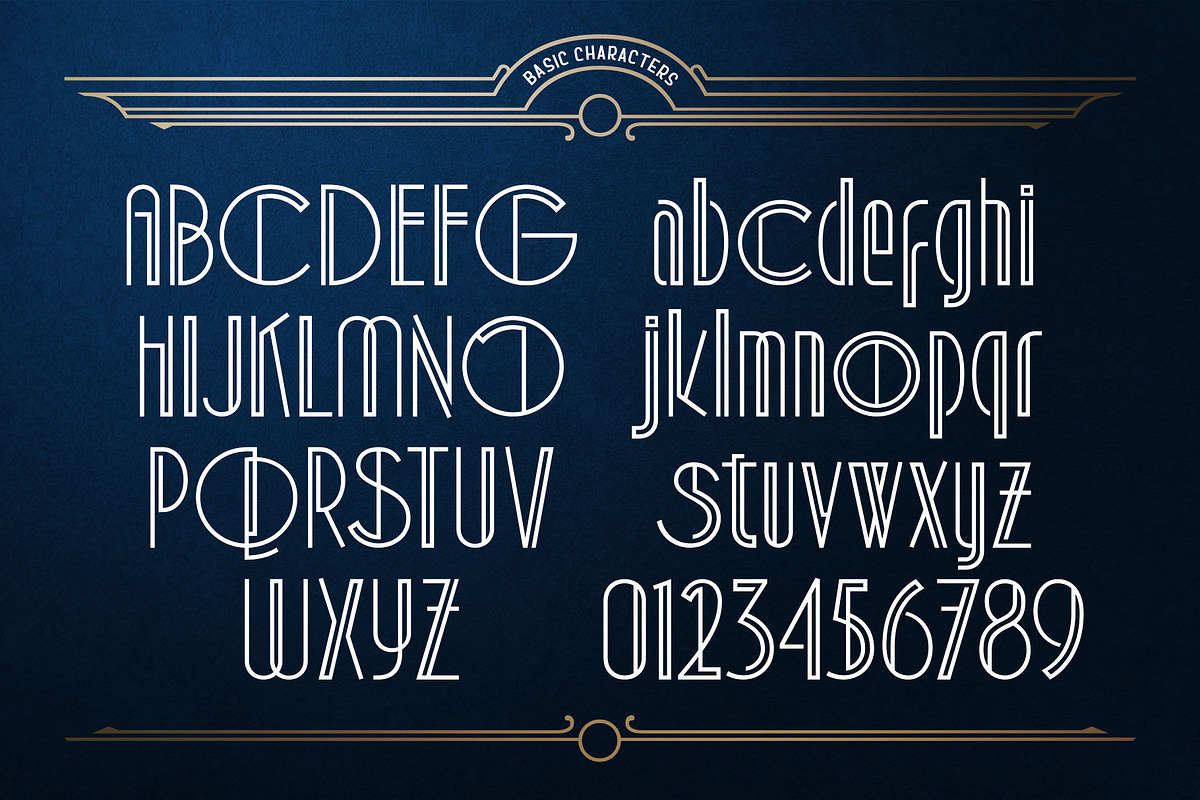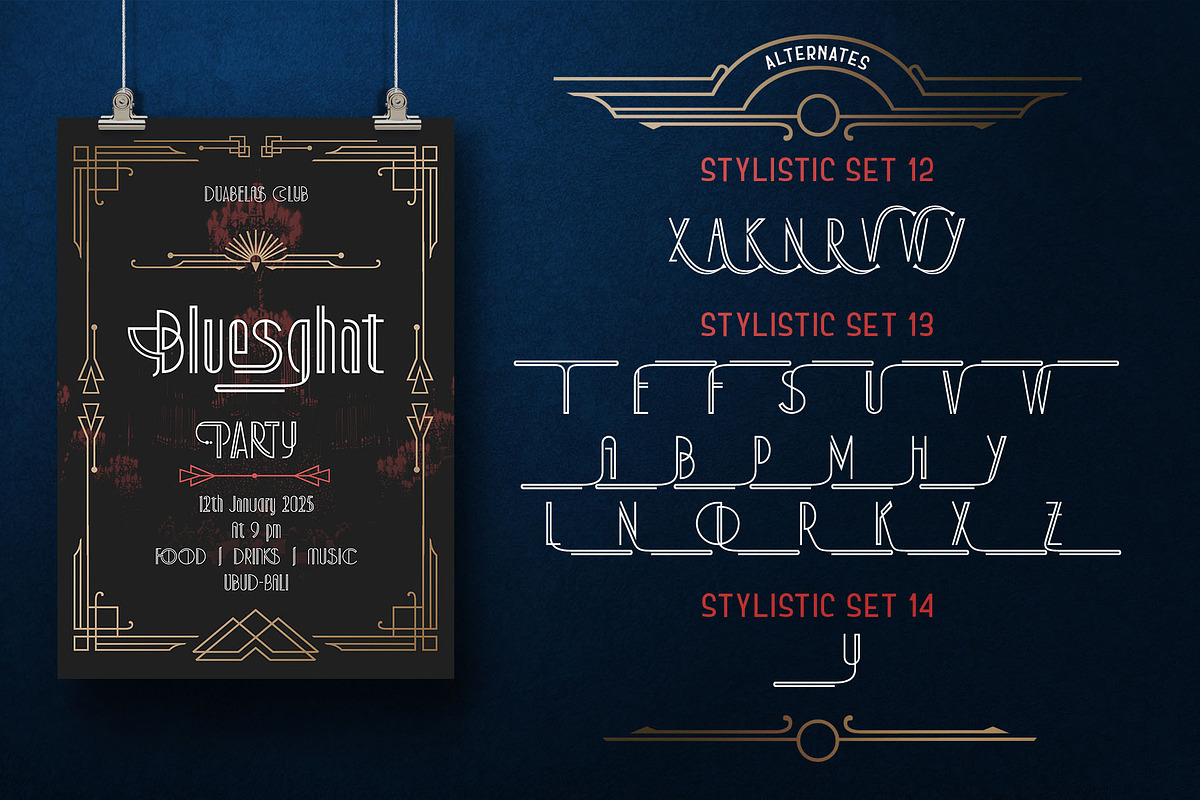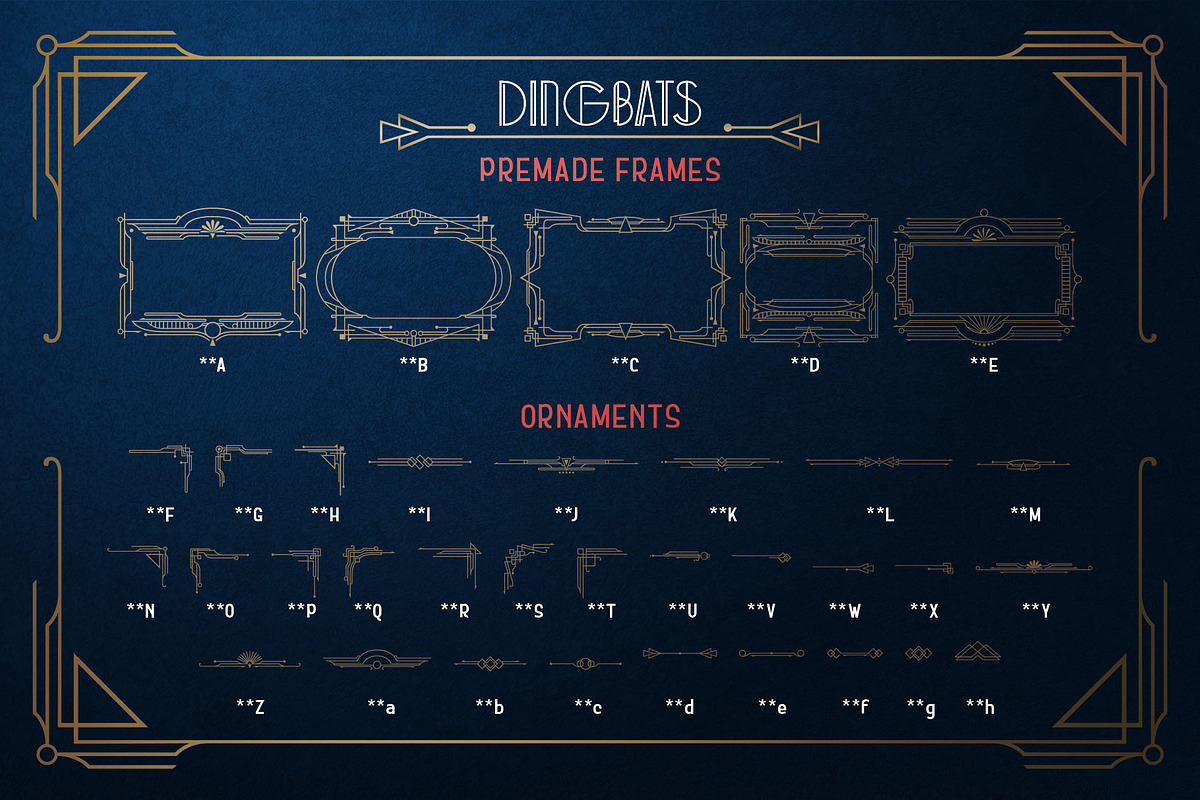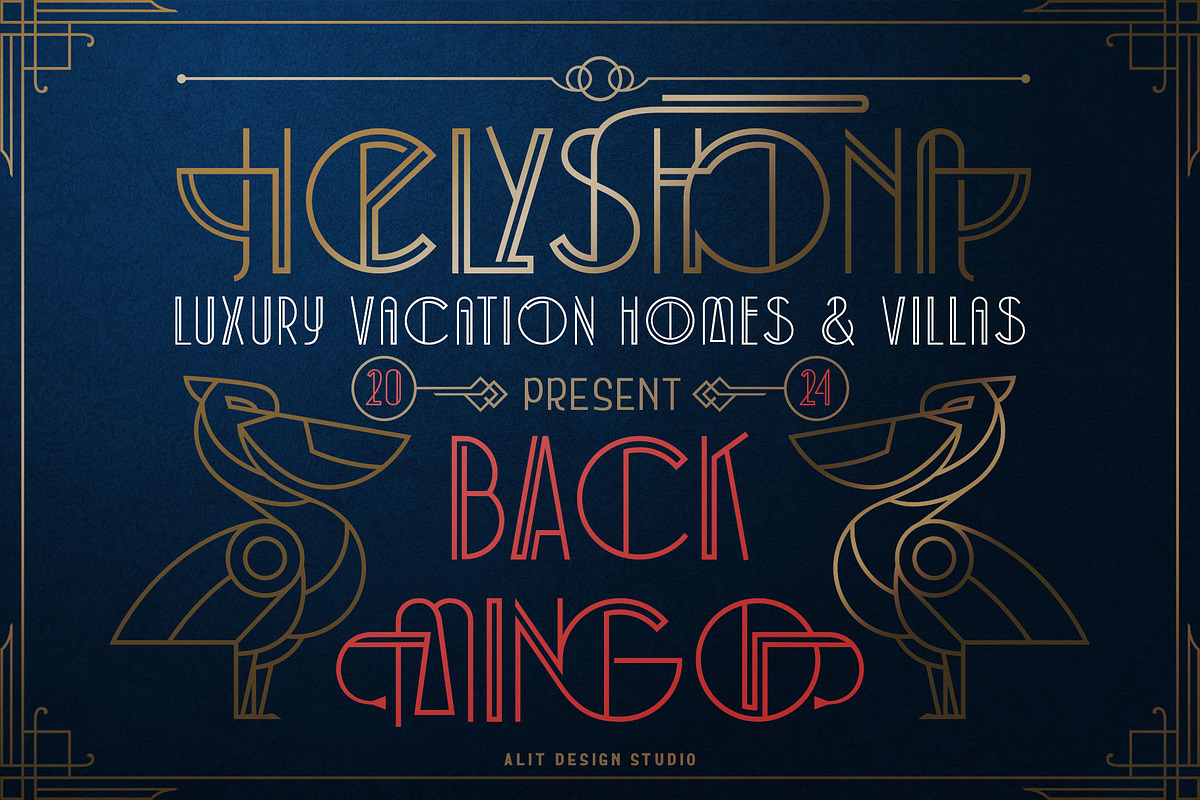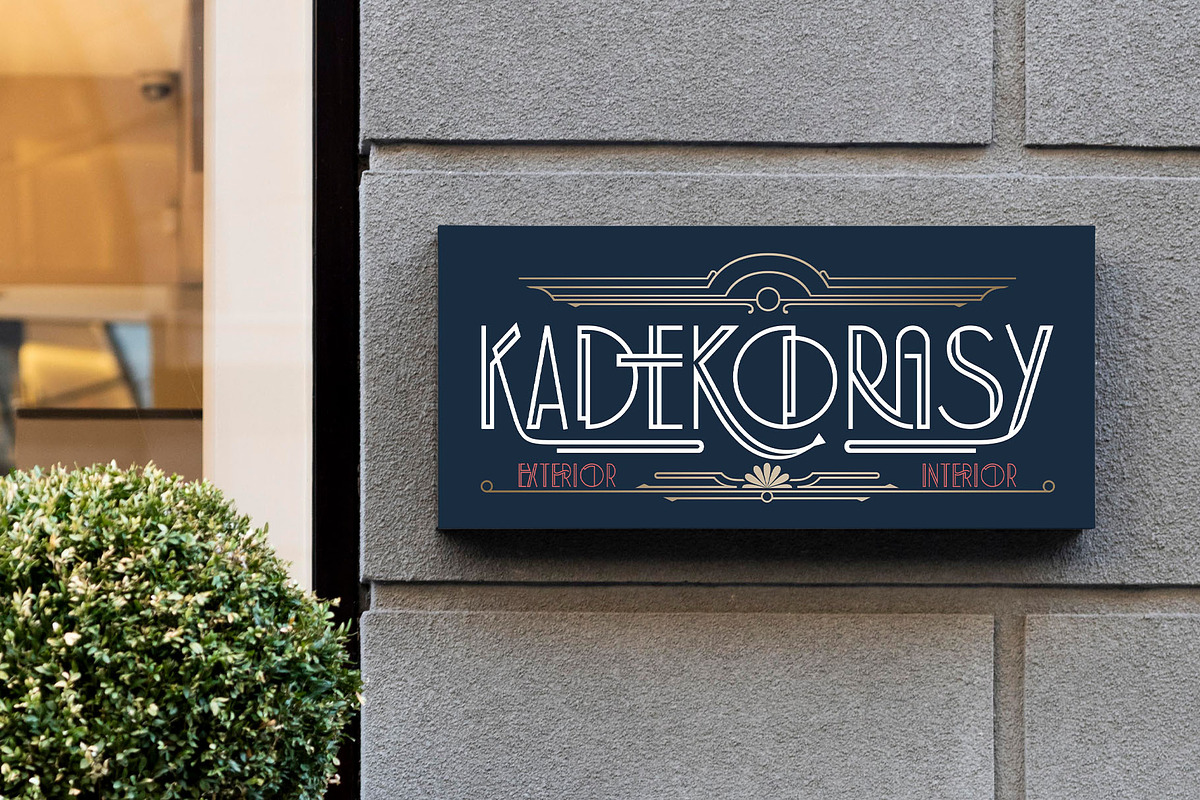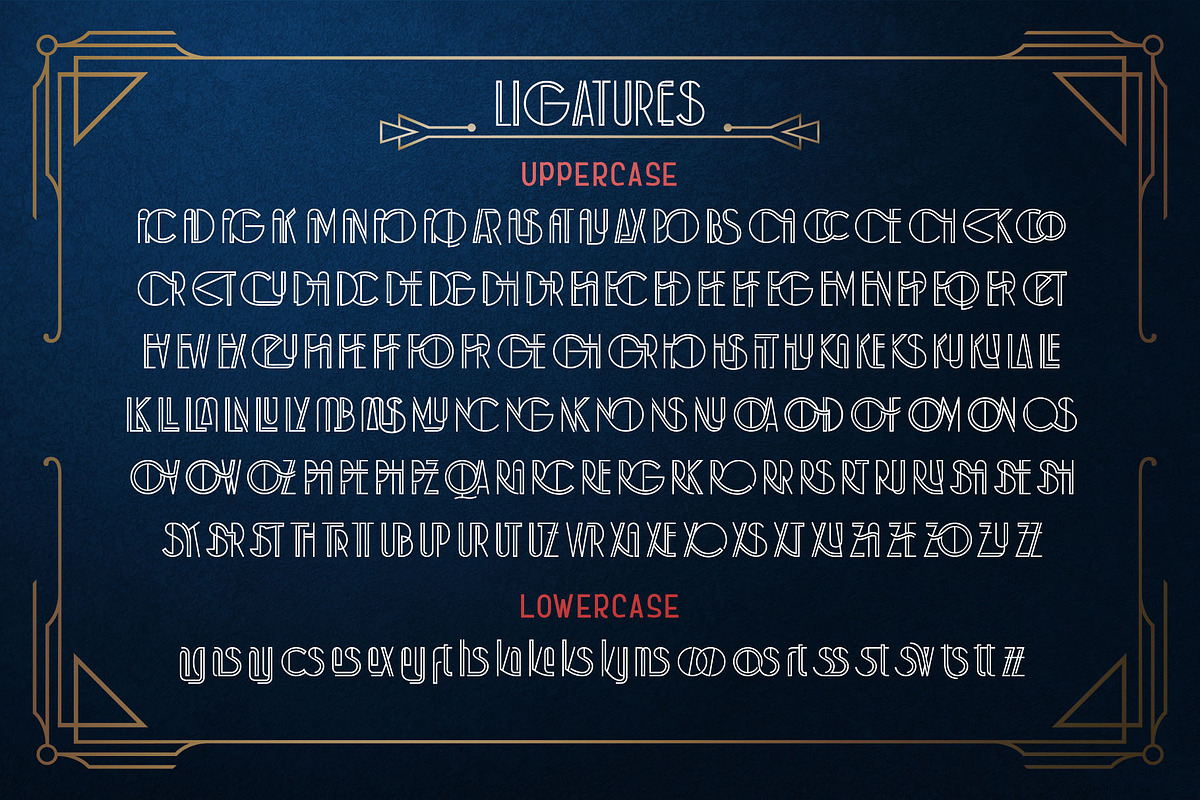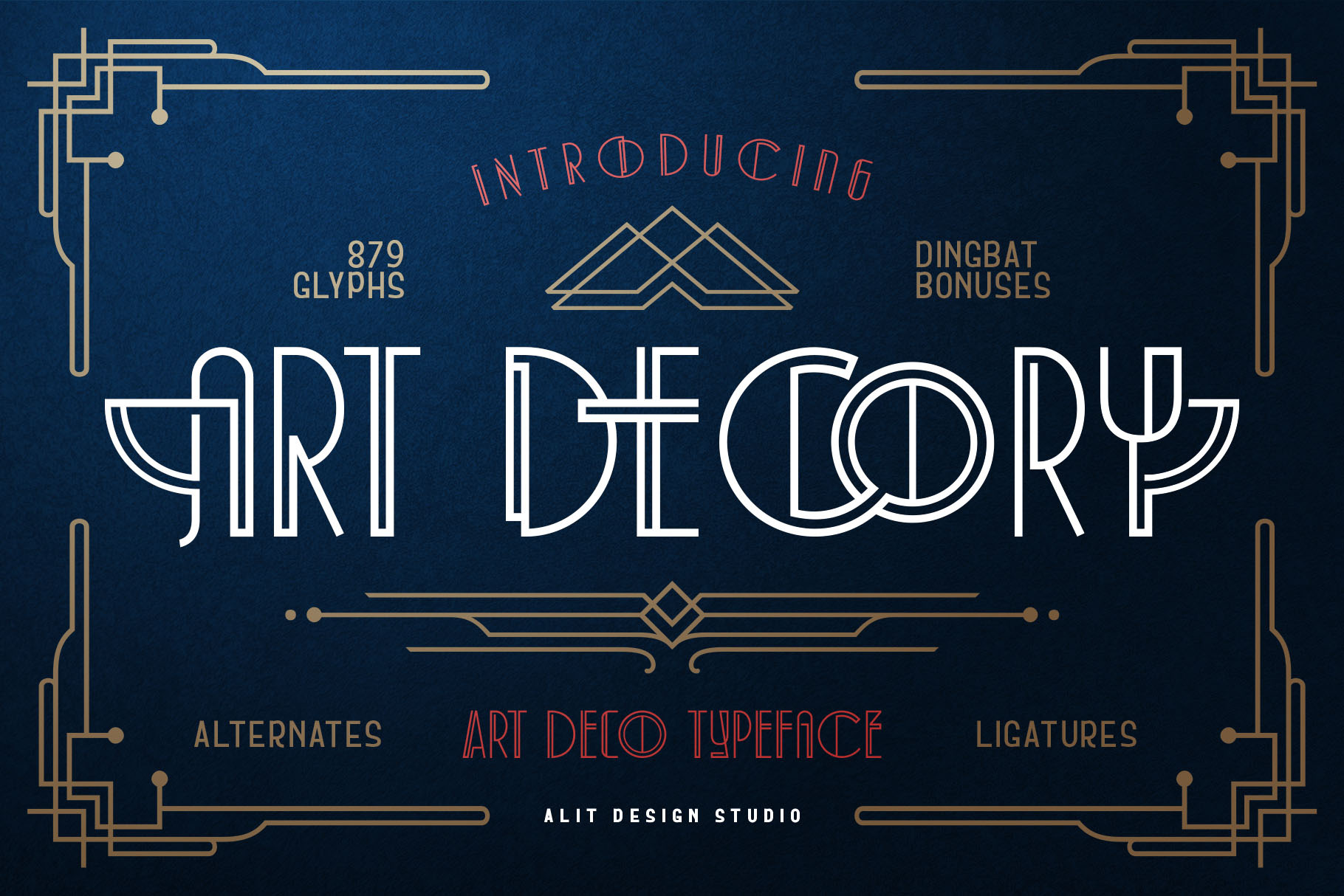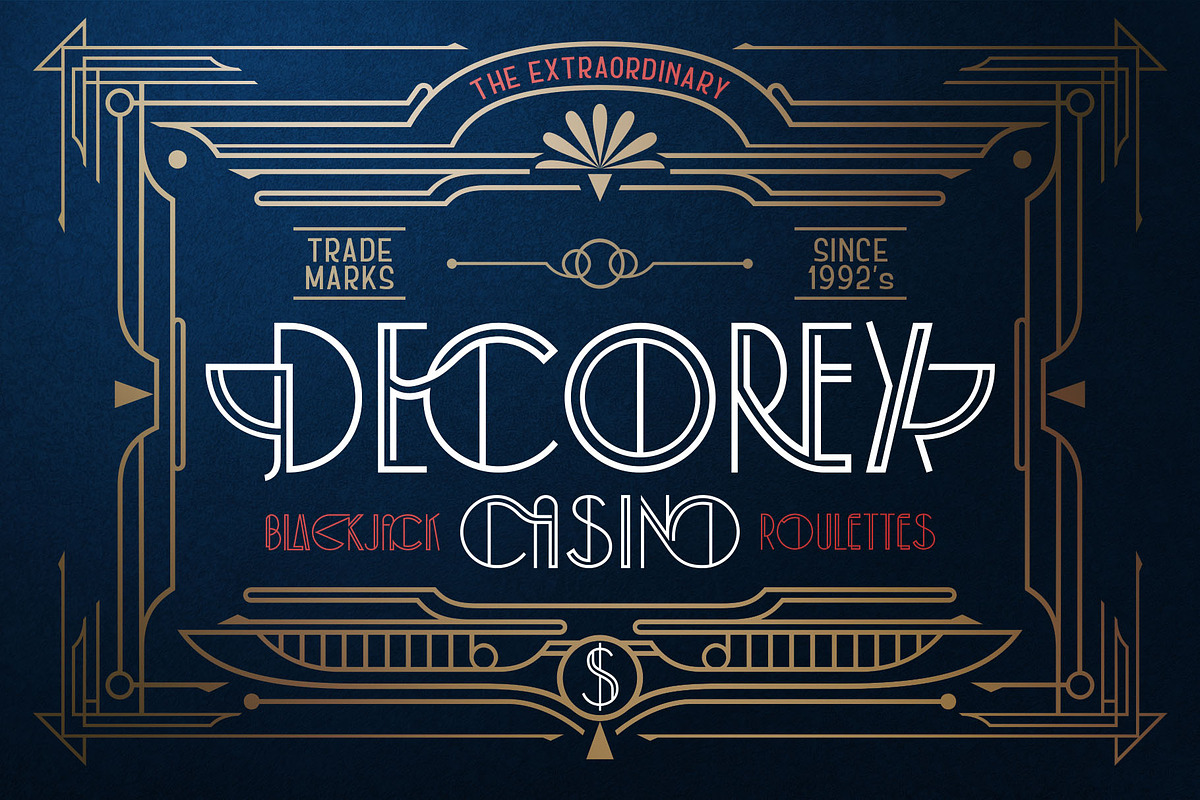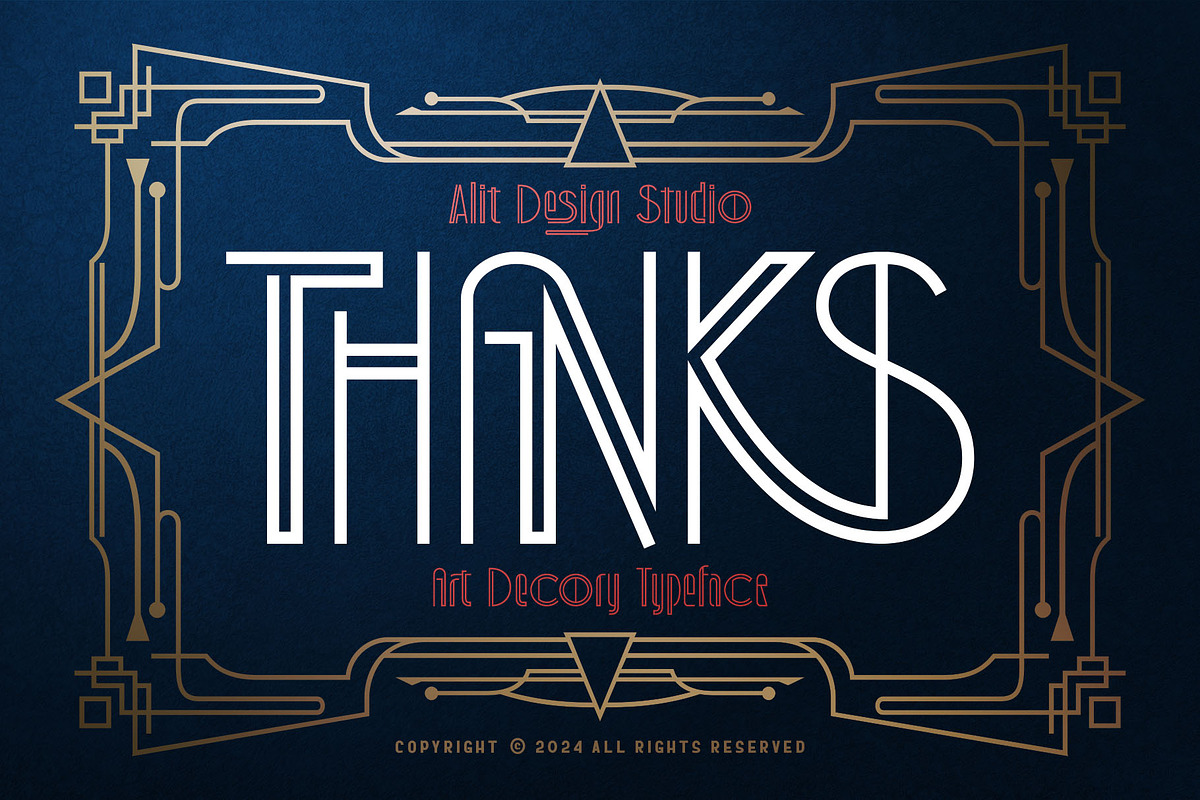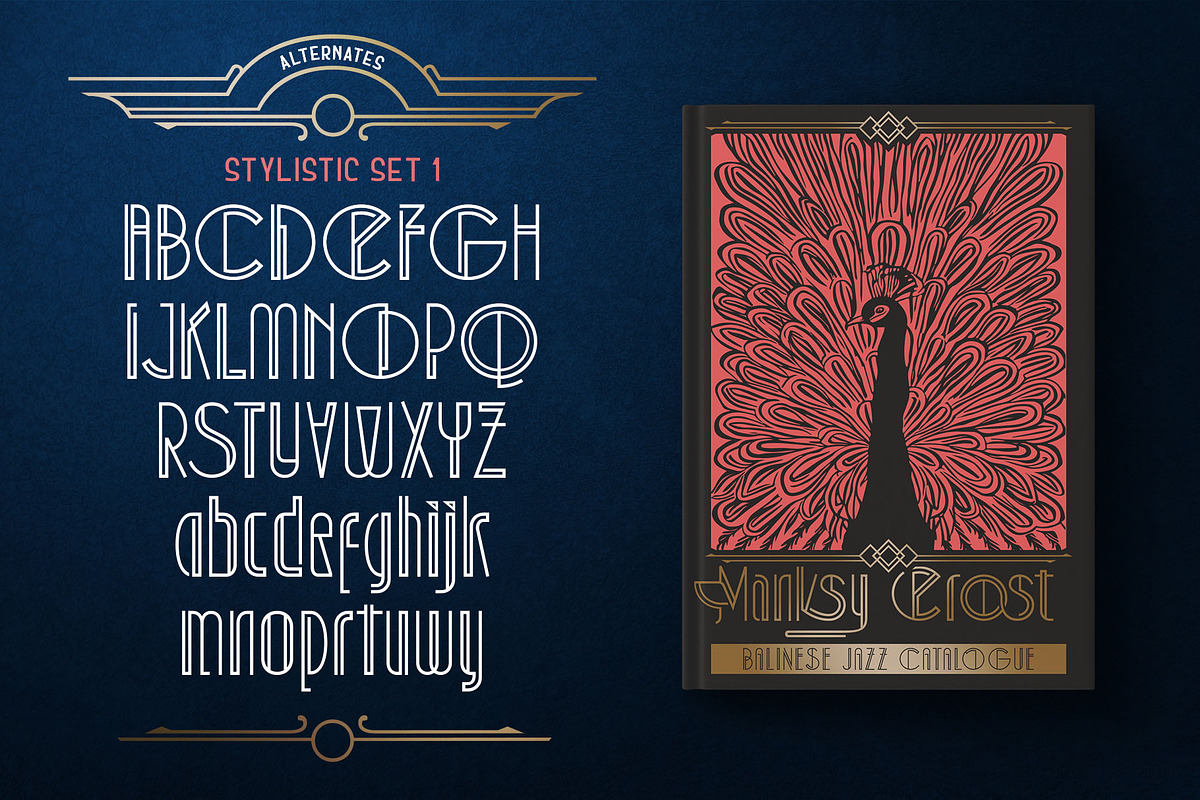
Art Decory Typeface
Art Decory Typeface is an elegant and sophisticated font inspired by the opulence and geometry of the Art Deco movement, with a modern twist. Its meticulously designed features make it perfect for adding a sense of timeless luxury and bold creativity to any design project. Here's a breakdown of its unique characteristics:
Extensive Character Set
With 879 characters, this typeface offers a comprehensive collection of glyphs, ensuring versatility and adaptability for diverse design needs. -
Alternative Characters
Multiple alternatives are available for many letters, giving you creative freedom to customize and add a distinctive touch to your text. -
Stylish Ligatures
Beautifully crafted ligatures seamlessly connect certain letter combinations, enhancing the flow and harmony of your typography. -
Decorative Swashes
Unique and artistic swashes add a flourish of elegance, perfect for making headlines, invitations, or branding elements truly stand out. -
Designed to cater to a global audience, the font includes multilingual support, covering a wide range of languages and alphabets for inclusive and international use.
Design Style:
- Art Deco Modern Fusion: The typeface blends the clean geometric forms and intricate details of classic Art Deco with contemporary design sensibilities.
- Sophisticated and Bold: It strikes a balance between refinement and assertiveness, making it ideal for branding, packaging, editorial design, and more.
- Versatility: From opulent wedding invitations to bold poster headlines, the font adapts beautifully to various design contexts.
Best Uses:
- Luxury branding and packaging
- Editorial design and high-end magazines
- Posters and advertisements with a vintage-modern vibe
- Wedding invitations and special event materials
- Logo and identity design for premium brands
Art Decory Typeface is more than just a font—it's a statement of style and elegance that elevates any project to a new level of sophistication.